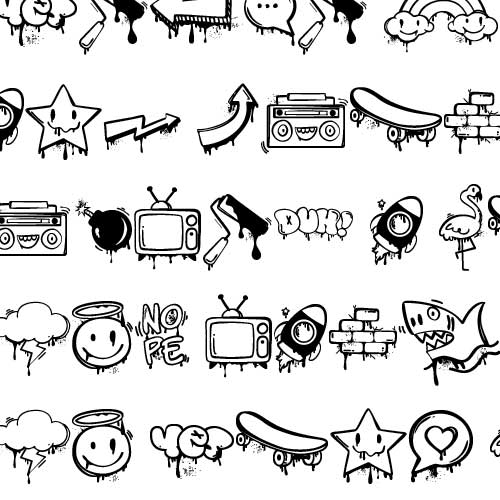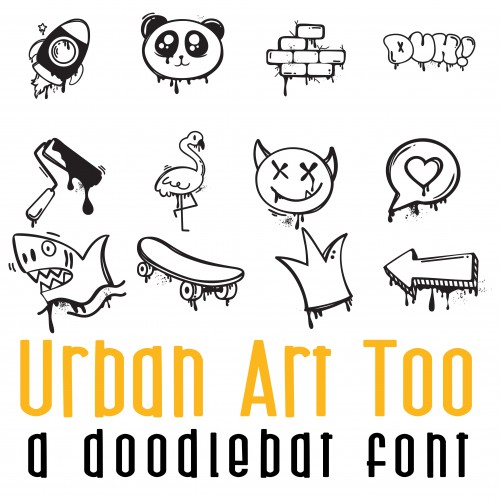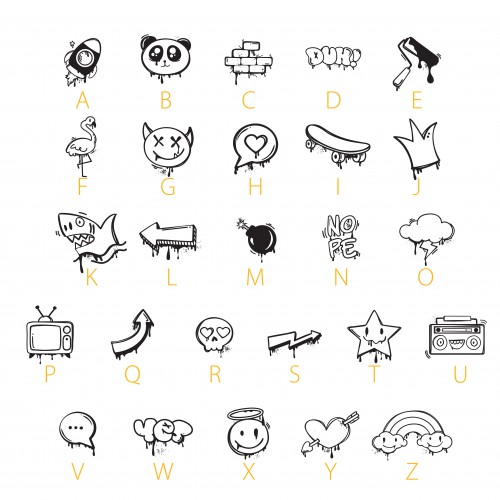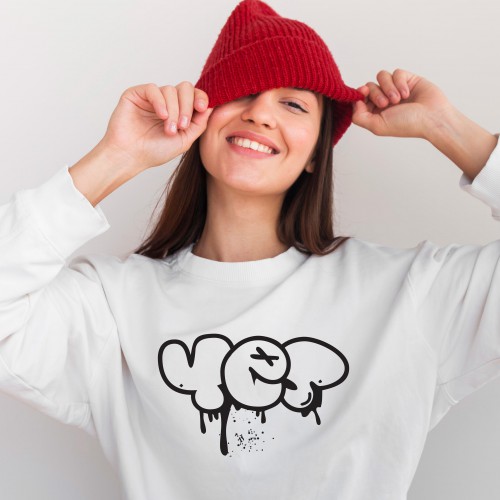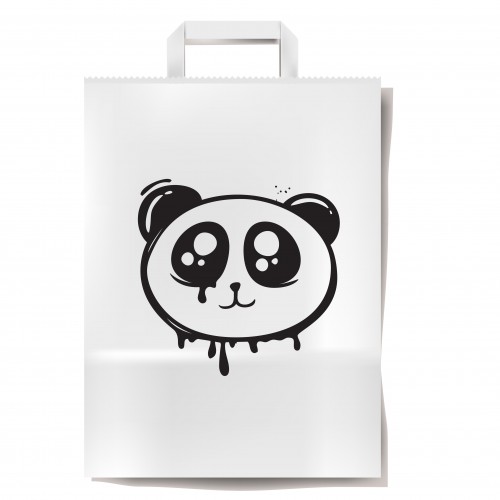
DB Urban Art - Too - DB
This fun doodlebat font features 26 more urban style grafitti art perfect for cards, crafts, gifts, planner stickers, decor, scrapbook pages and more!